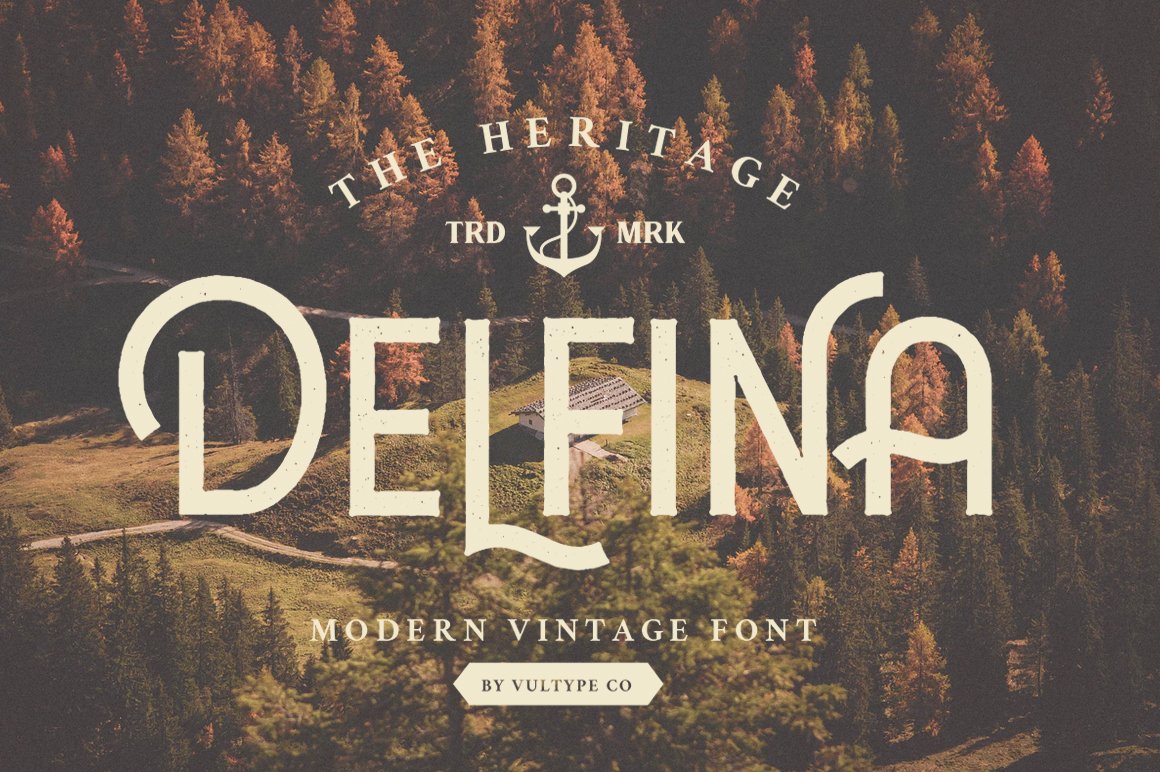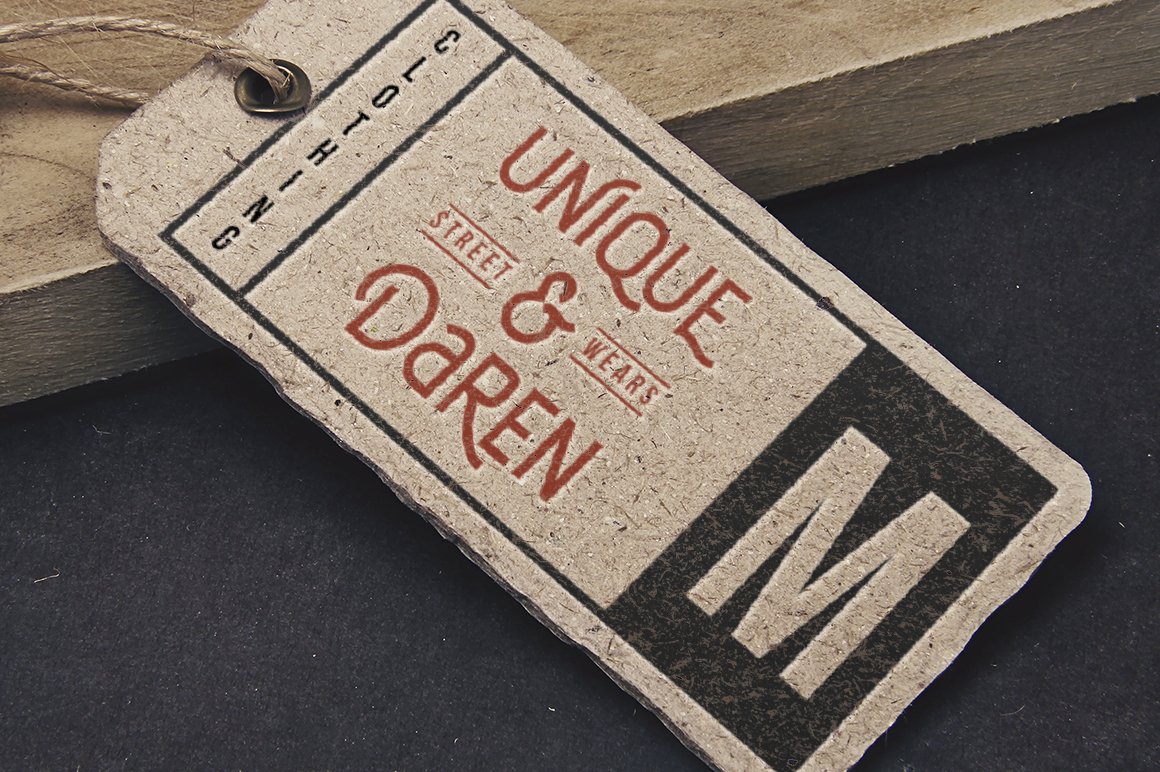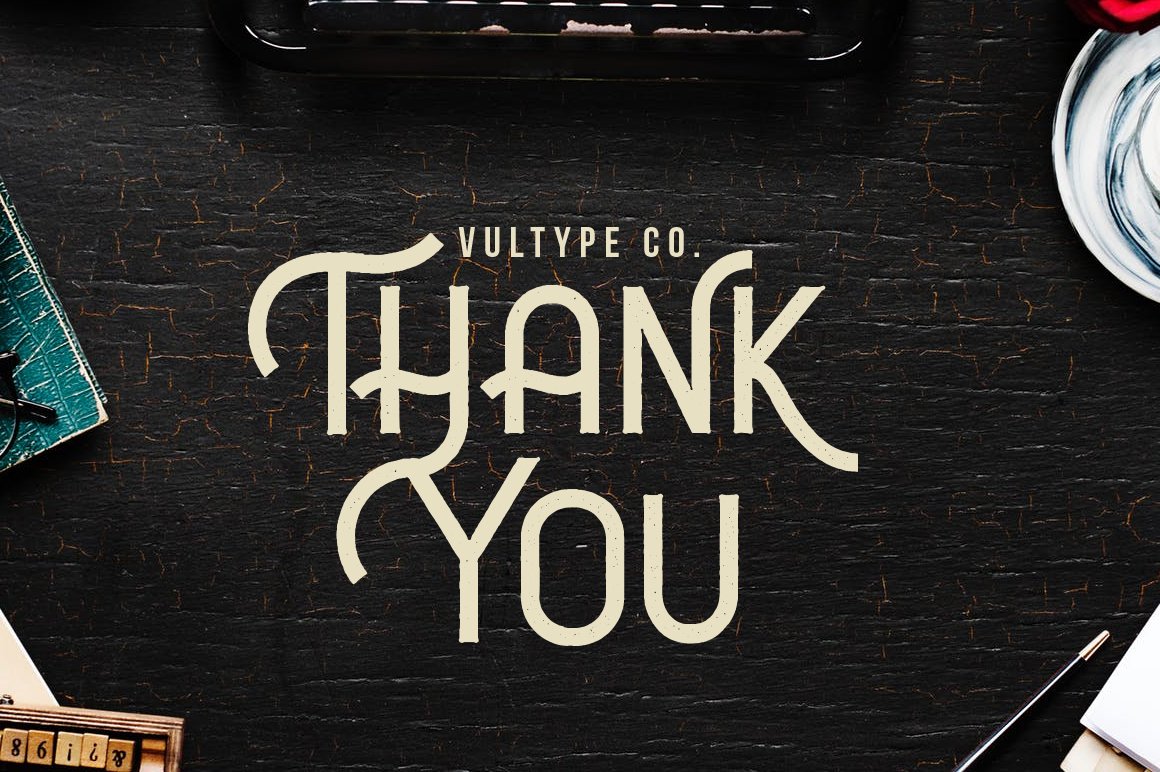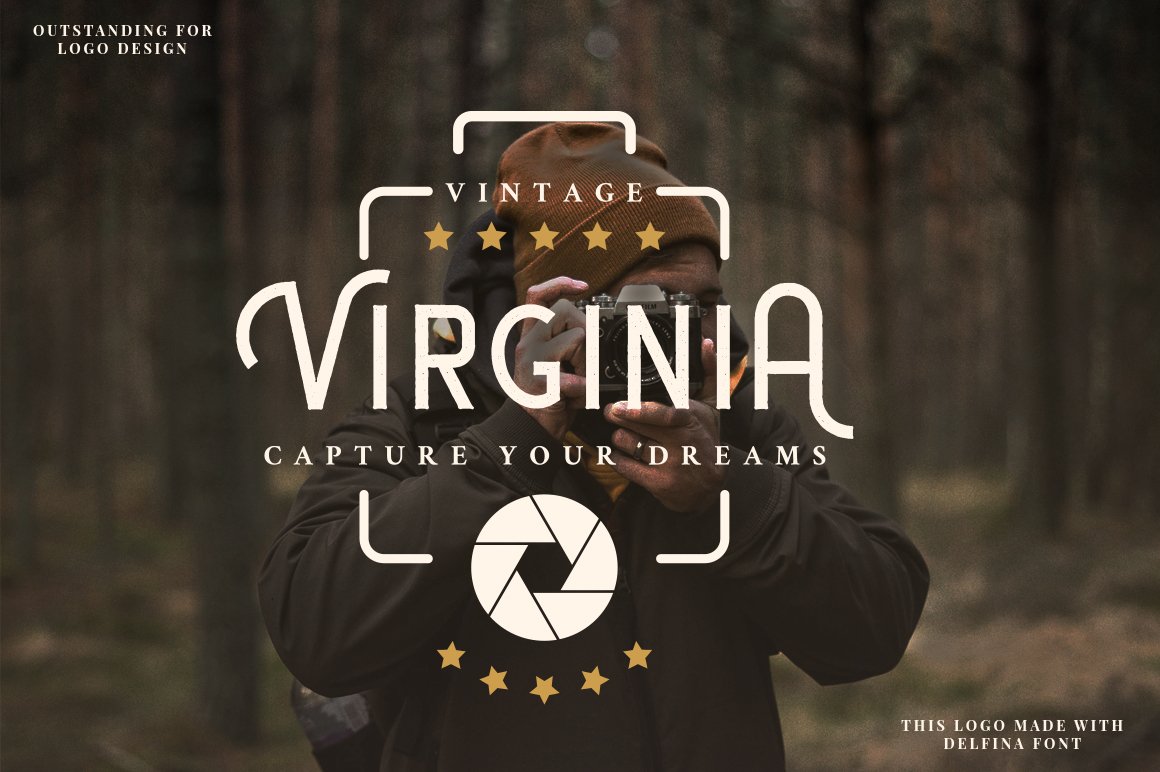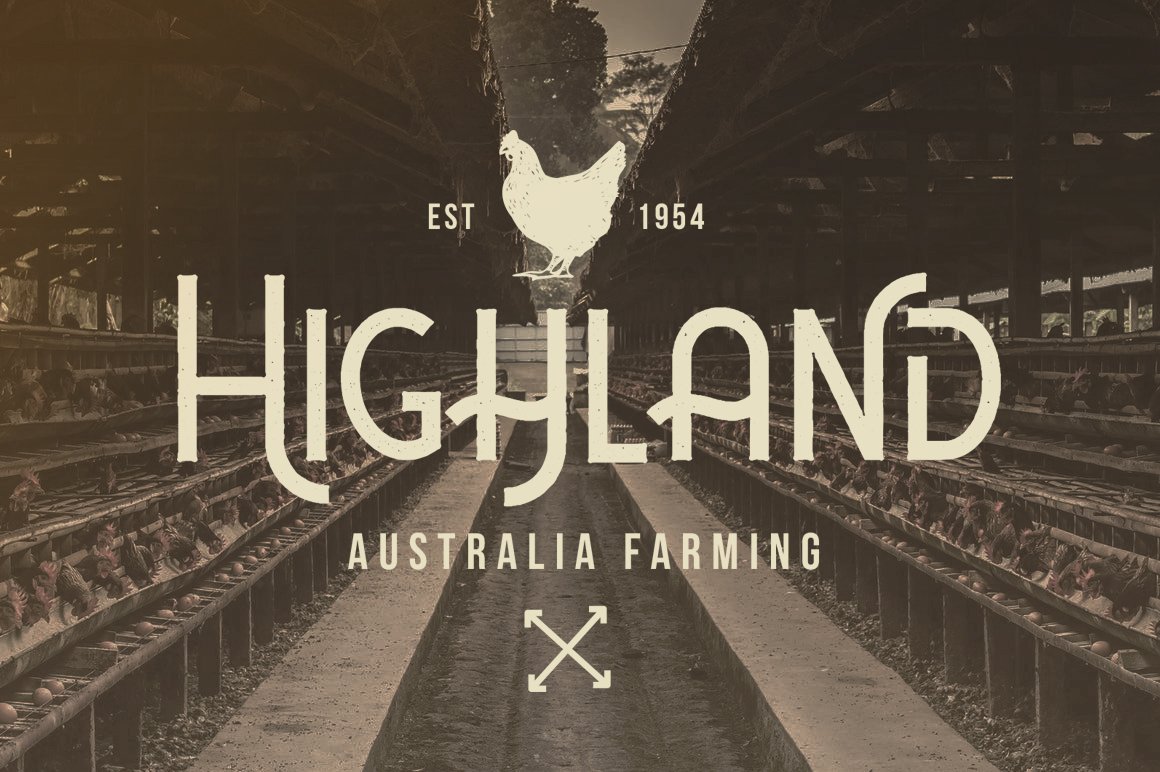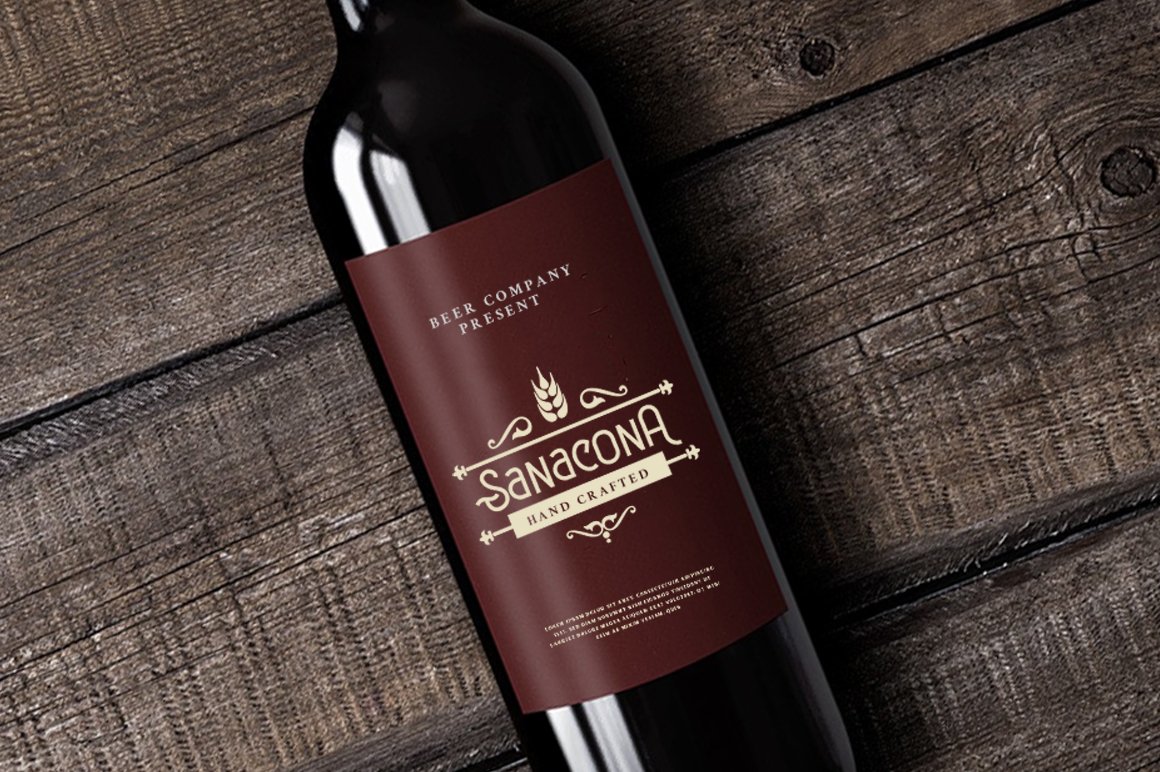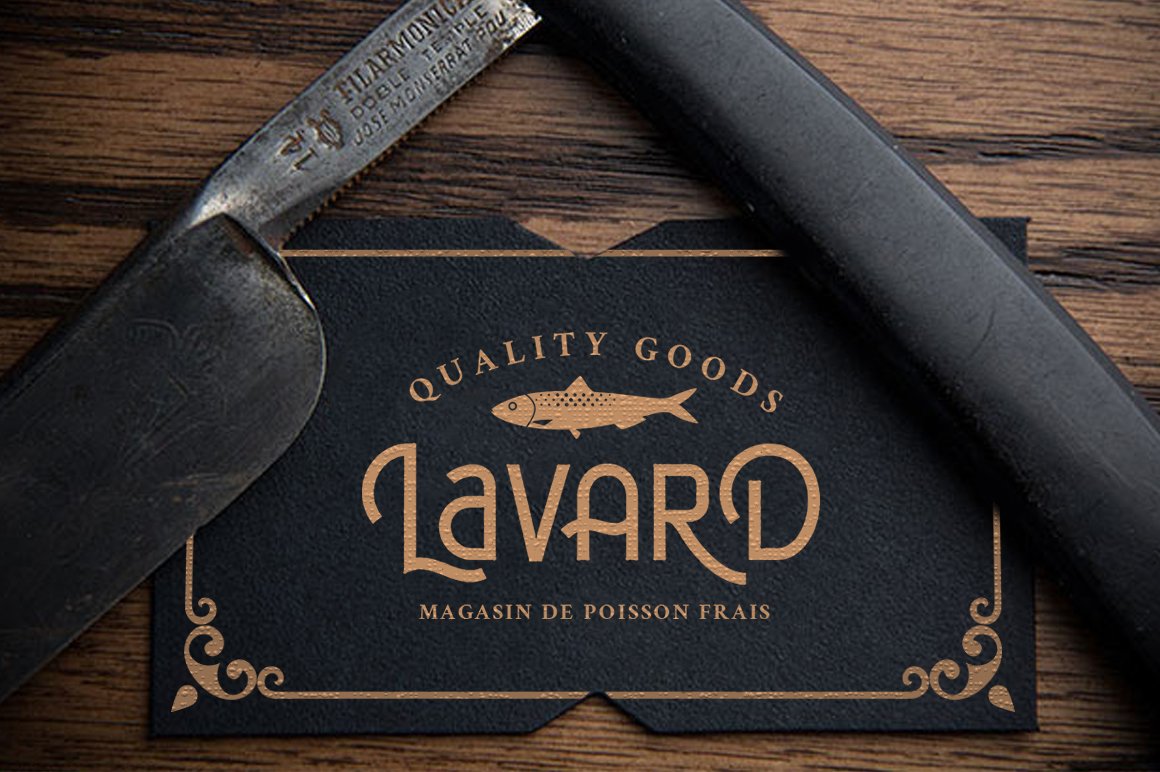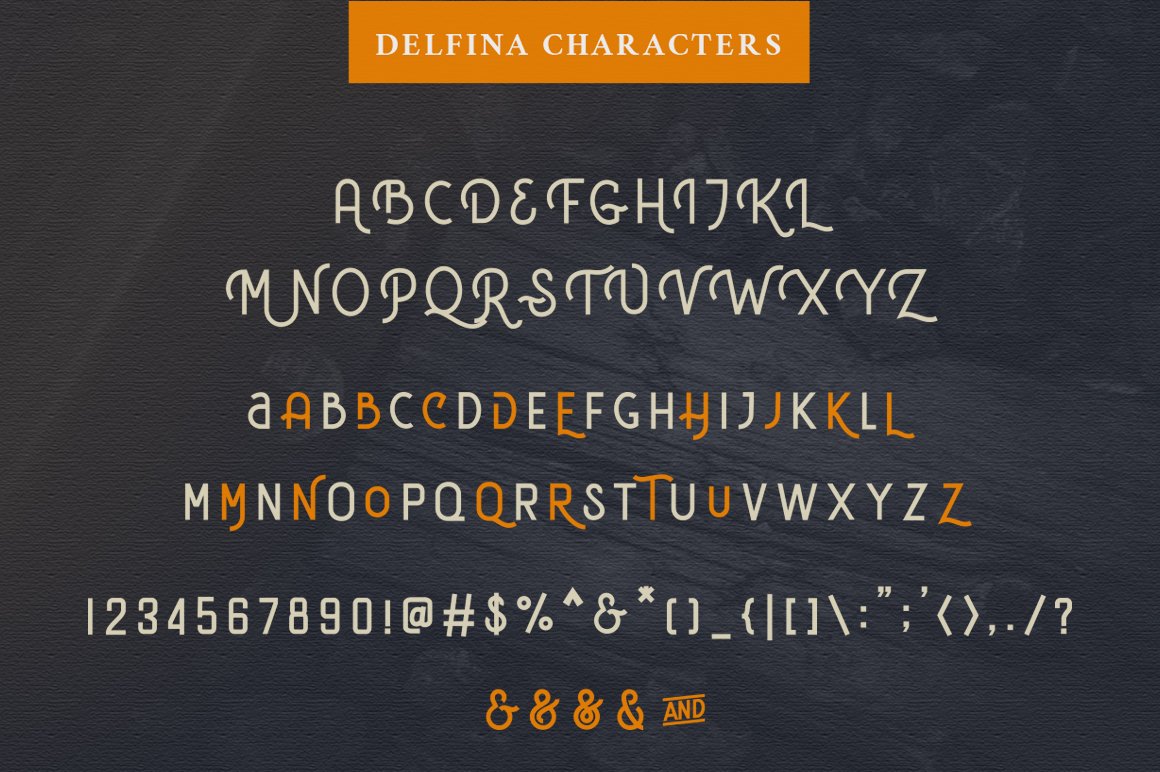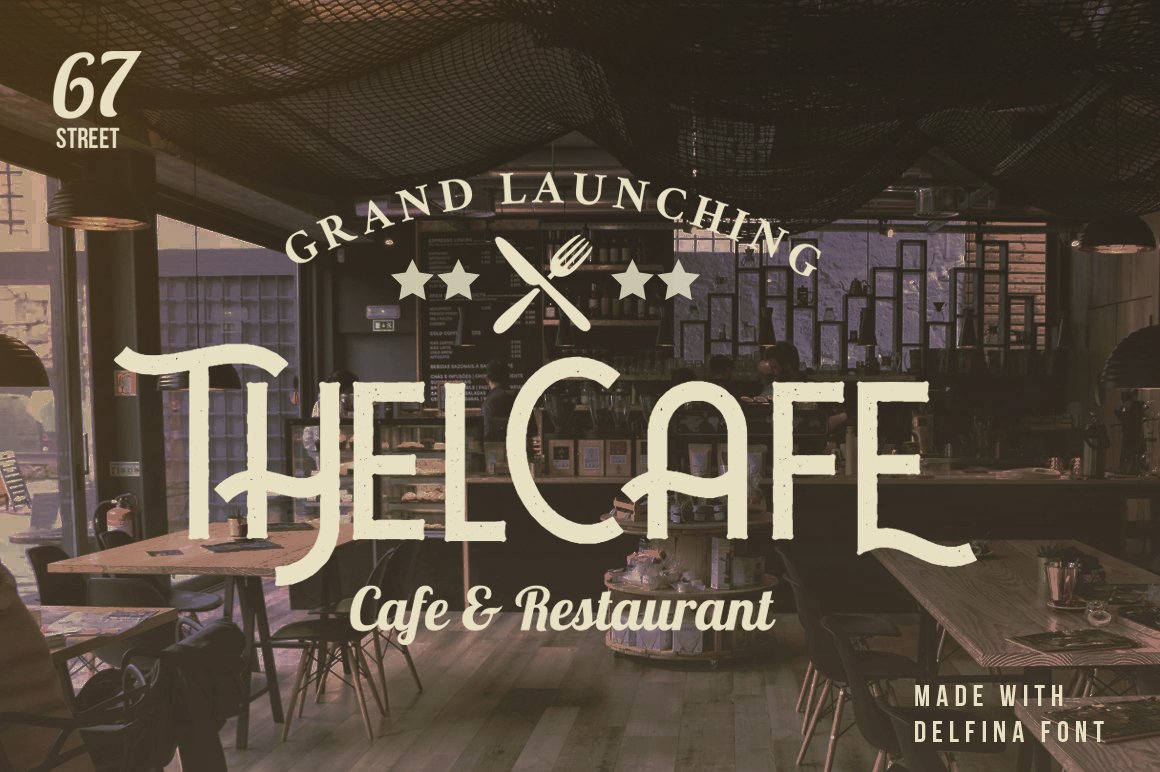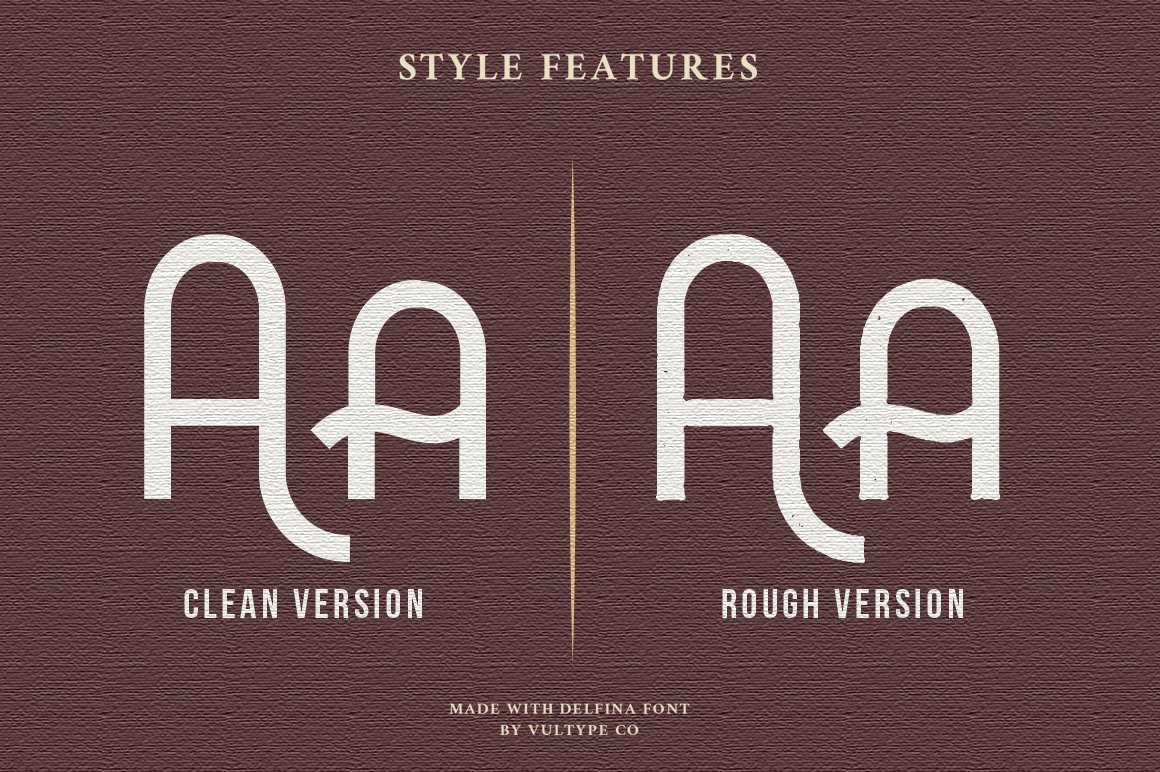
Free Delfina Vintage Sans Serif Font is an awesome sans serif font. It comes with clean and rough also come with a lot of alternative characters that make your work look more professional. This font match for some designs such as vintage design, logo wedding invitation, gift card and more. However, this free font is a personal use license, if you want to get more features, make sure you purchase the premium version.
Delfina